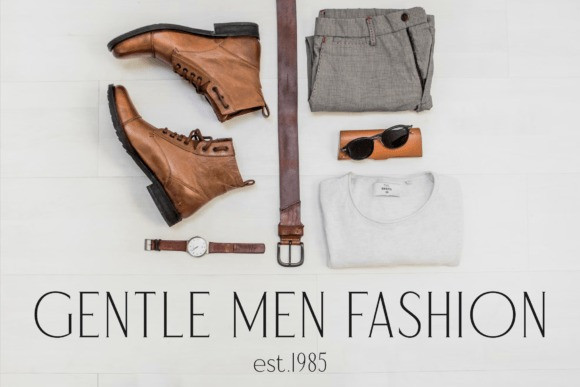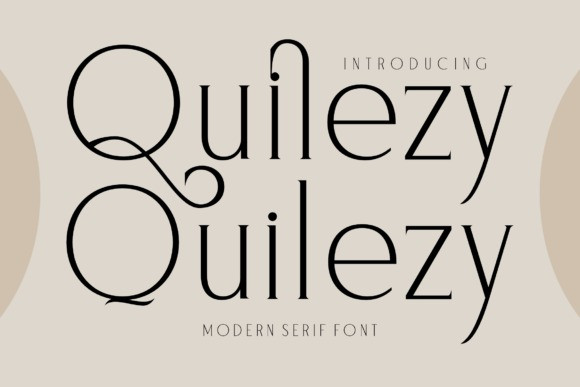
Quilezy Font
Quilezy Font is a modern and classic serif font that has its own unique style & modern look. This typeface is perfect for an elegant & luxurious logo, book or movie title design, fashion brand, magazine, clothes, lettering, quotes, and so much more.